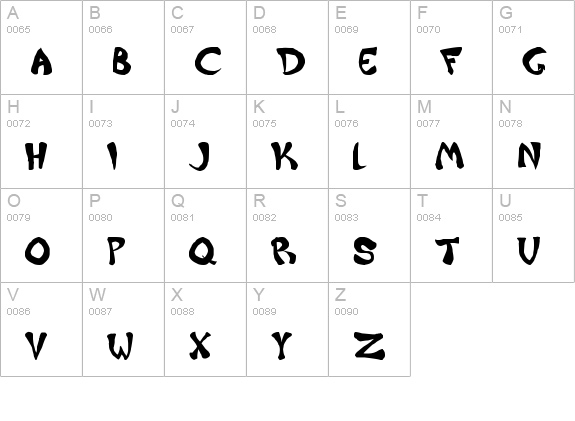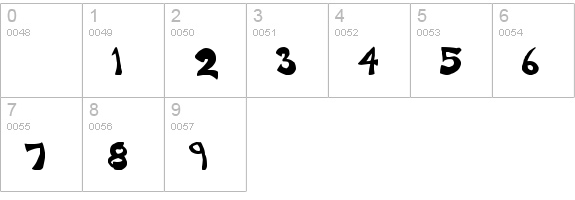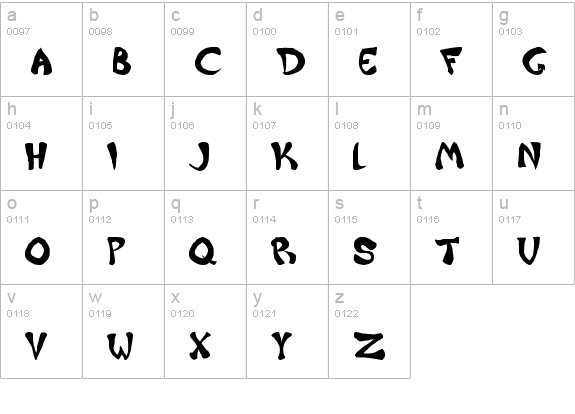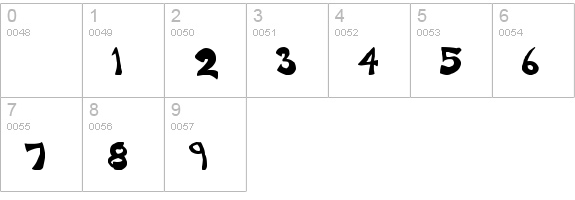
Introducing Raiderz font, a bold and captivating typeface that embodies the spirit of adventure and excitement. With its clean lines and intricate details, this font is perfect for adding a touch of boldness and personality to your designs. Raiderz font is freely available to download at FontsMarket.com, making it accessible to designers, creatives, and enthusiasts alike. Whether you're working on a logo, a poster, or a website, this font is sure to make a lasting impression. The strong and confident letterforms of Raiderz font exude a sense of power and energy, making it an ideal choice for projects that require a dynamic and impactful visual presence. Its versatility allows it to be used in a wide range of design applications, from gaming and sports to branding and advertising. The free availability of Raiderz font at FontsMarket.com ensures that everyone can enjoy its unique and captivating aesthetic without any barriers. Download it today and unlock a world of creative possibilities. Let Raiderz font be the driving force behind your next design project and watch as it takes your visuals to new heights of excellence.